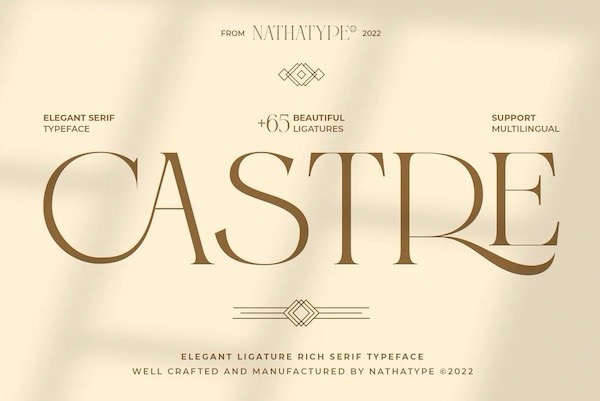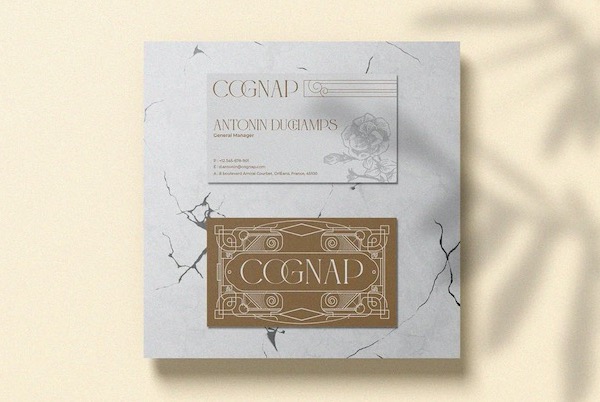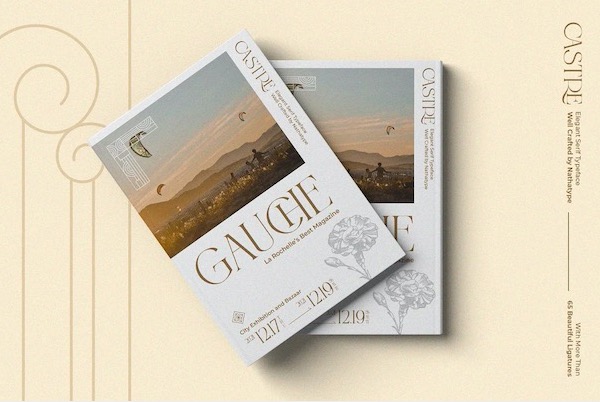
Introducing Castre Font. This serif font was created and shared by Natha Type. It will be simple and easy to read without losing the modern looks. The uppercase design is paired with thin lines allowing us to dive more into the world of modernity. Slay your design with Castre’s best features so you’ll look your best on whatever your design is, all the time.
Ligatures
Multilingual Supports
Numerals and Punctuations
Castre Serif Font